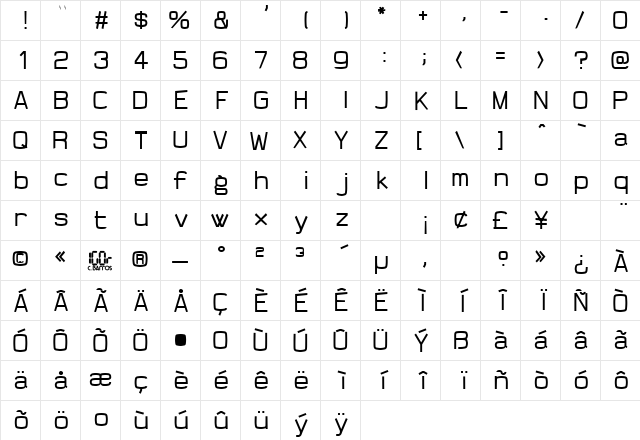
Arigatou Kamisama Normal
Design Context for Arigatou Kamisama Typeface
Arigatou Kamisama takes a measured approach to typography — its balanced proportions and neutral character make it a reliable workhorse for both digital and print work.